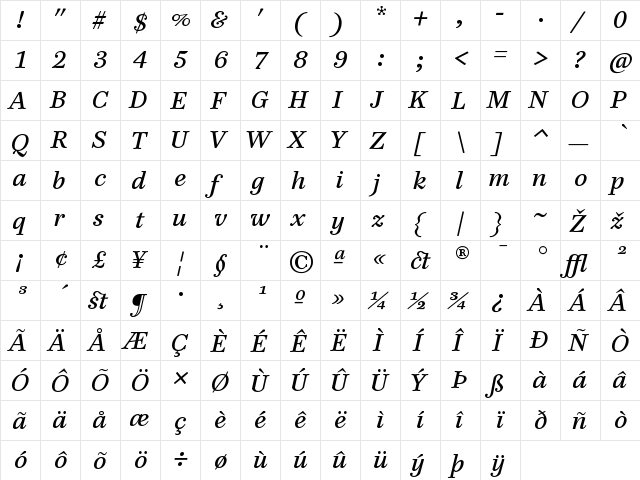
PB9TTP-ItalicTF Regular
Design Context for PB9TTP-ItalicTF Typeface
PB9TTP-ItalicTF offers clean, dependable letterforms without strong stylistic allegiance, making it a practical choice for designers who need flexibility. The slanted form adds forward momentum and visual energy.
Pro Tip: Use PB9TTP-ItalicTF for emphasis, pull quotes, and subheadings where its slanted energy can add rhythm to the layout.